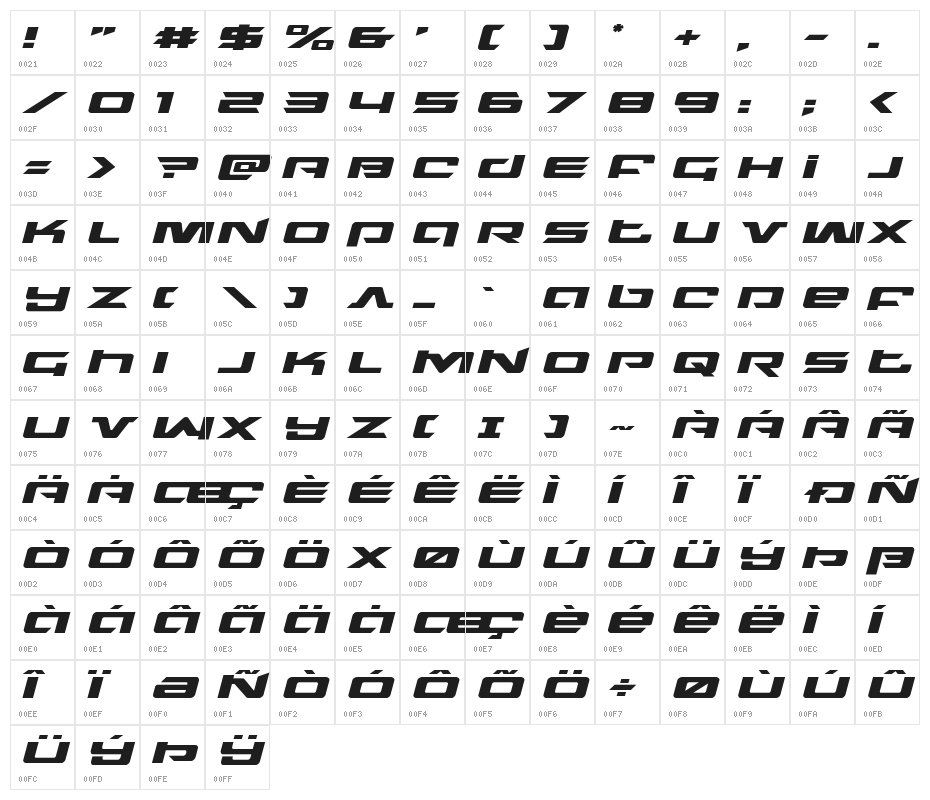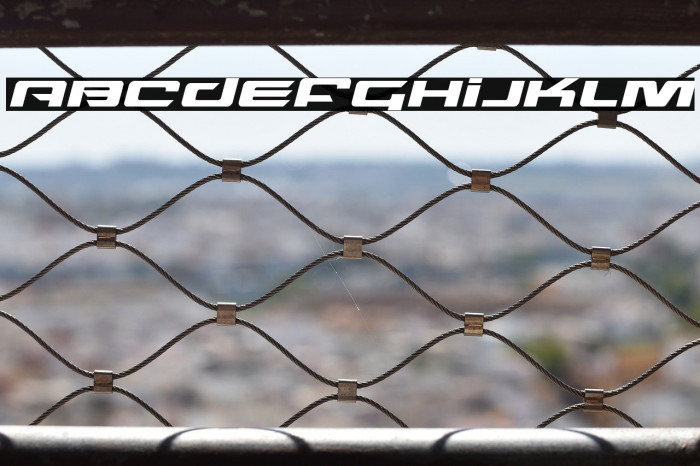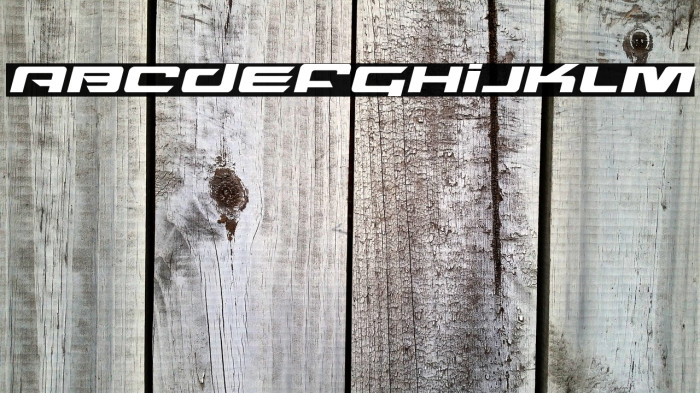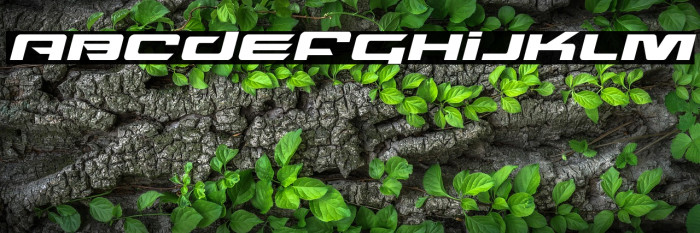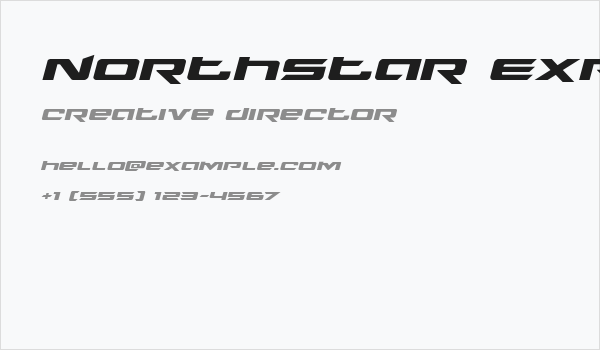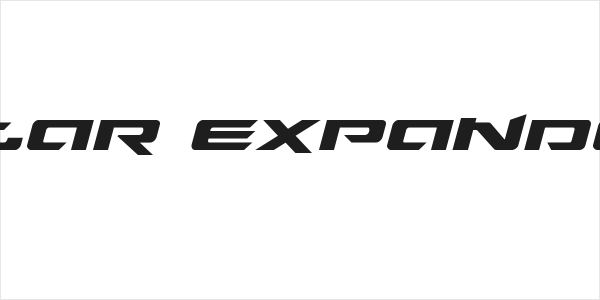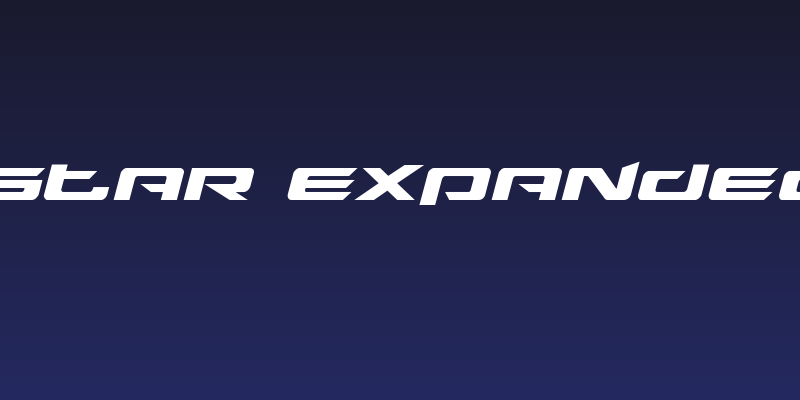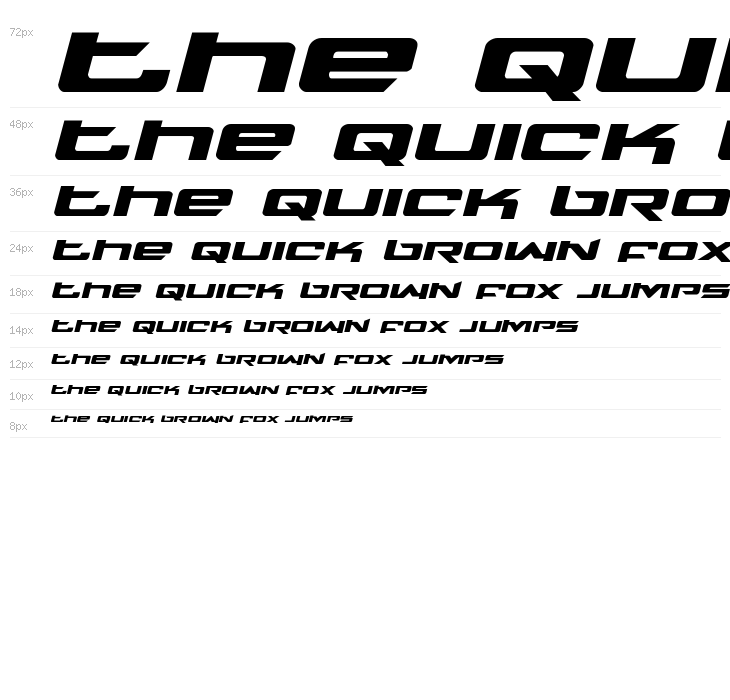
Northstar Expanded Italic Font
Northstar Expanded Italic Description
This font features a futuristic and dynamic design with an italicized and expanded style. The characters are bold and have a distinct angularity, giving them a sharp and modern appearance. The strokes are consistent in thickness, providing a uniform look across all characters. The font's expanded width enhances readability while maintaining a sleek and stylish aesthetic. Its geometric shapes and clean lines make it suitable for projects that require a contemporary and cutting-edge feel.
| Proposed Projects | Ideal for technology branding, sci-fi themed projects, video game titles, and modern advertising campaigns. |